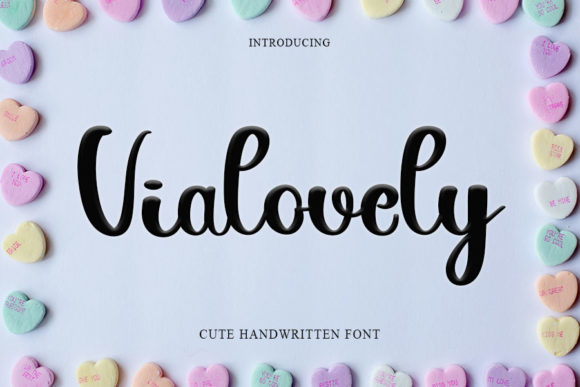
Welcome to the enchanting world of Vialovely Font, where handwritten elegance meets creative magic. As a script font family, Vialovely dances across your designs with a unique flair, leaving a trail of beauty in its wake.
Enter the mesmerizing realm of Halloween with Vialovely Font, your ultimate companion for creating haunting designs. From spine-tingling invitations to hair-raising posters, Vialovely's enchanting strokes will send shivers down your spine and make your Halloween creations truly unforgettable.
Immerse yourself in the vastness of Vialovely's characters, each one an exquisite piece of art. The lowercase letters intertwine gracefully, forming a harmonious symphony of shapes that will captivate your audience. The uppercase letters stand tall and proud, exuding an air of mystery and intrigue, perfect for adding an eerie touch to your designs.
With Vialovely, your design possibilities are endless. Its versatility knows no bounds, whether you're crafting e-cards, Halloween party flyers, or even creating unique logos and branding for your haunted house. Vialovely's charm will add a touch of magic to every project you undertake.
Unleash the power of Vialovely and watch your designs transform into mesmerizing works of art. Its beauty will leave an indelible mark on your audience, creating a haunting and unforgettable experience. Vialovely is more than just a font; it's an open door to a world of creativity, where your imagination can run wild and free.
So, step into the enchanting world of Vialovely Font, where Halloween dreams come true. Let its haunting elegance guide you as you create designs that will mesmerize and terrify. Vialovely awaits you, ready to take your creative spirit on a thrilling adventure.